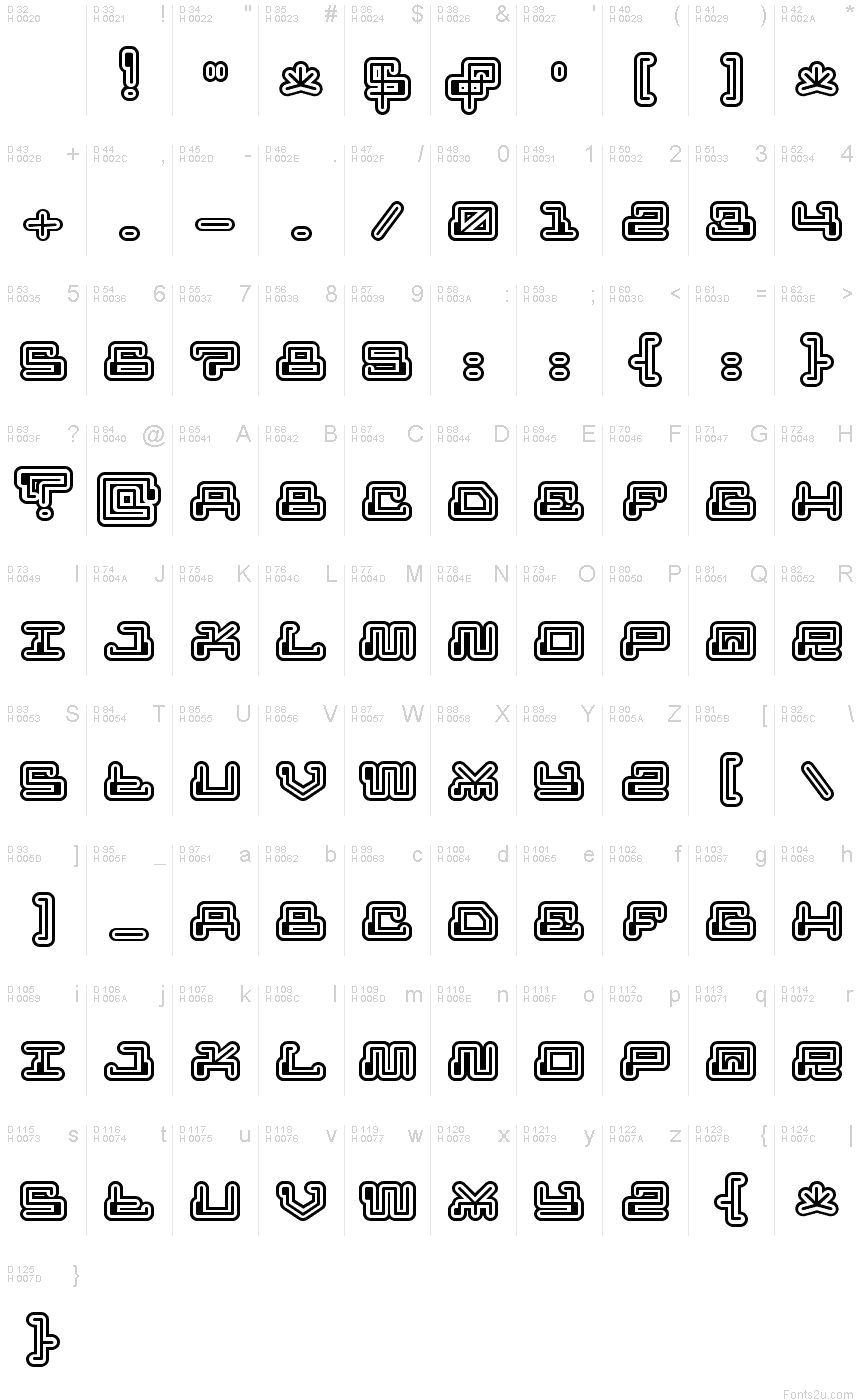
MR Fuglesang Remix is a free outlined techno display font with a rounded, circuit-like pulse. The caps feel like compact neon tubing bent into square corners, with a second inner track that turns each letter into a little maze and gives the whole set a retro-futurist, arcade-era flavor.
It fits posters, game branding, music flyers, title cards, tech event graphics, and short cover lines where a free font can do more than just label the page. Use it when you want a few words or monograms to carry that wired, synthetic mood, because the looping inline structure keeps even simple initials looking active.
DEDICATED TO MR FUGLESANG - THE FIRST SWEDE IN SPACE!